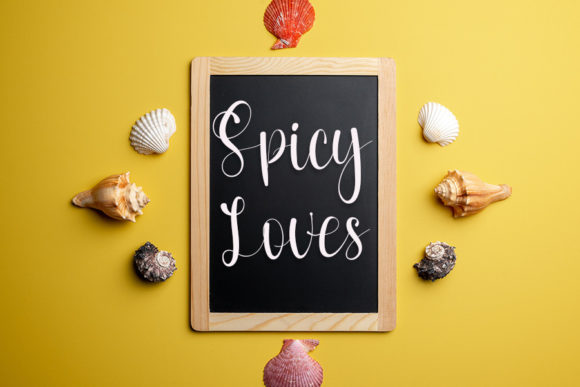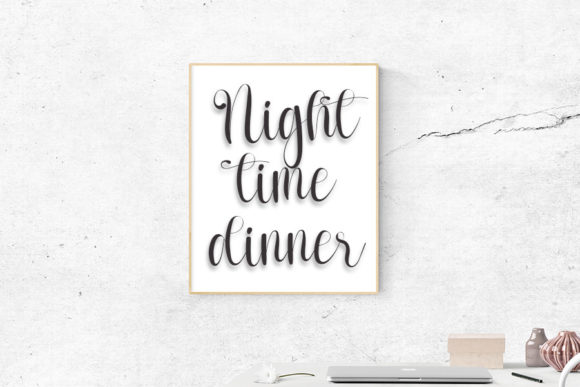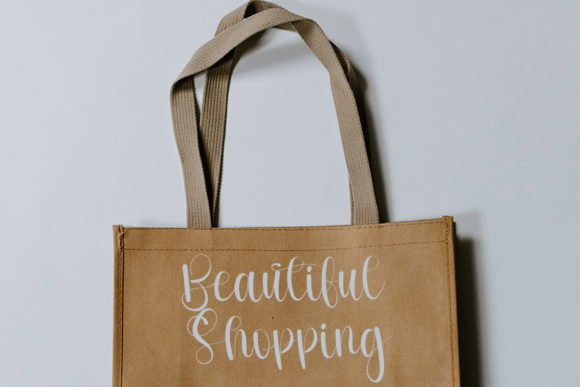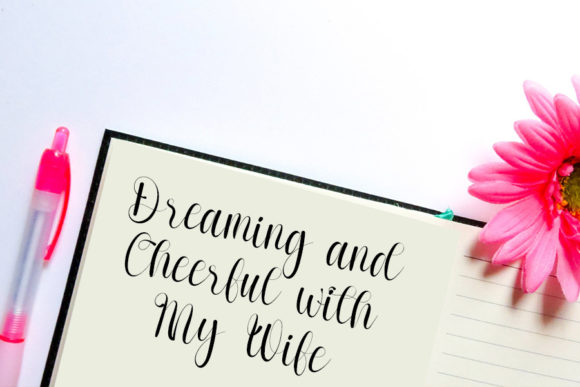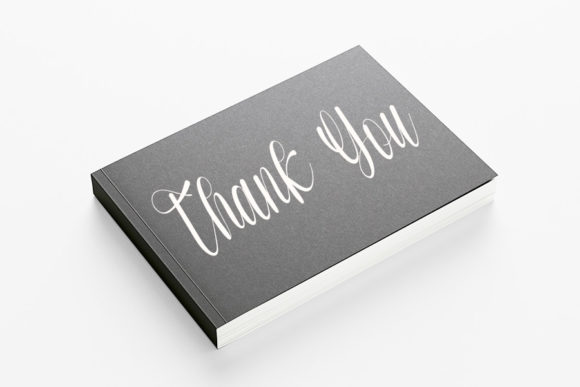
Gionalysa Font: Elevate Your Designs with Elegance and Playfulness
Are you on the hunt for a font that embodies both sophistication and whimsy? Look no further than the Gionalysa Font. This stunning handwritten font is making waves in the design community, and for good reason. With its modern aesthetic and playful twist, Gionalysa is the perfect addition to any design project, from branding and invitations to stationery, wedding designs, and social media posts.
The Perfect Blend of Modern and Playful
Gionalysa Font boasts a beautiful, elegant handwritten style that is sure to capture attention. Its modern look is balanced by a playful twist, making it versatile enough to be used in a wide range of applications. Whether you’re designing a wedding invitation, a social media post, or a brand logo, Gionalysa is up to the task.
What Makes Gionalysa Font So Special?
- PUA Encoding: Gionalysa Font is PUA (Private Use Area) encoded, which means you can easily access all of the glyphs and swashes. This feature makes it simple to add a personal touch to your designs.
- Wide Range of Applications: From branding and stationery to wedding designs and social media posts, Gionalysa Font is the perfect choice for any project that requires a touch of elegance and playfulness.
- Easy to Use: With its user-friendly encoding, you can quickly and easily access all of the font’s features, making it simple to bring your design vision to life.
Why Designers and Crafters Love Gionalysa Font
Designers and crafters are raving about Gionalysa Font, and it’s easy to see why. This font offers the perfect combination of style, versatility, and ease of use. Here are just a few reasons why Gionalysa has become a favorite among designers and crafters:
- Unique and Eye-Catching: Gionalysa Font is sure to make your designs stand out from the crowd. Its unique blend of modern and playful elements makes it a true showstopper.
- Time-Saving: With Gionalysa Font, you can easily access all of the glyphs and swashes you need, saving you time and effort in your design process.
- Endless Creative Possibilities: Whether you’re designing for print or digital, Gionalysa Font offers endless creative possibilities. From elegant wedding invitations to playful social media posts, this font is sure to inspire your next design project.
How to Use Gionalysa Font in Your Designs
Using Gionalysa Font in your designs is easy. Here are a few tips to get you started:
- Pair it with Other Fonts: Gionalysa Font pairs well with a variety of other fonts. Try pairing it with a bold sans-serif font for a striking contrast.
- Experiment with Swashes: With Gionalysa Font’s PUA encoding, you can easily access a range of swashes and glyphs. Experiment with different combinations to add a personal touch to your designs.
- Use it for Headings and Titles: Gionalysa Font is perfect for headings and titles. Its elegant, handwritten style makes it a great choice for adding a touch of sophistication to your designs.
In conclusion, Gionalysa Font is a beautiful and elegant handwritten font that is sure to elevate your designs. With its modern look, playful twist, and PUA encoding, it’s the perfect choice for designers and crafters looking to add a touch of sophistication and whimsy to their work. Whether you’re designing for print or digital, Gionalysa Font is sure to inspire your next design project.